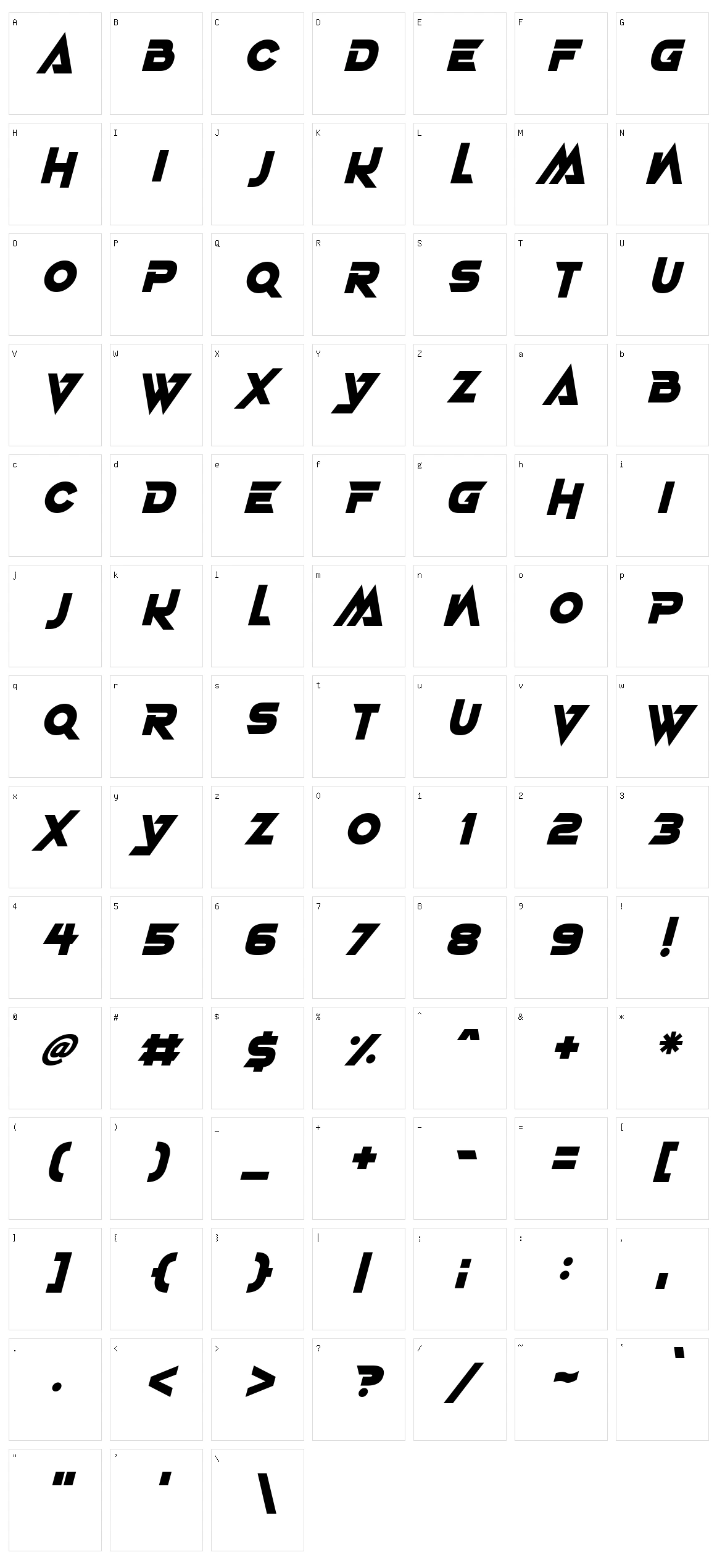
Deadly Advance
Designed by: Hawtpixel
Upper case (capitals) contain alternate versions of some characters, and can be used to avoid unwanted overlapping.
Deadly Advance Character Set